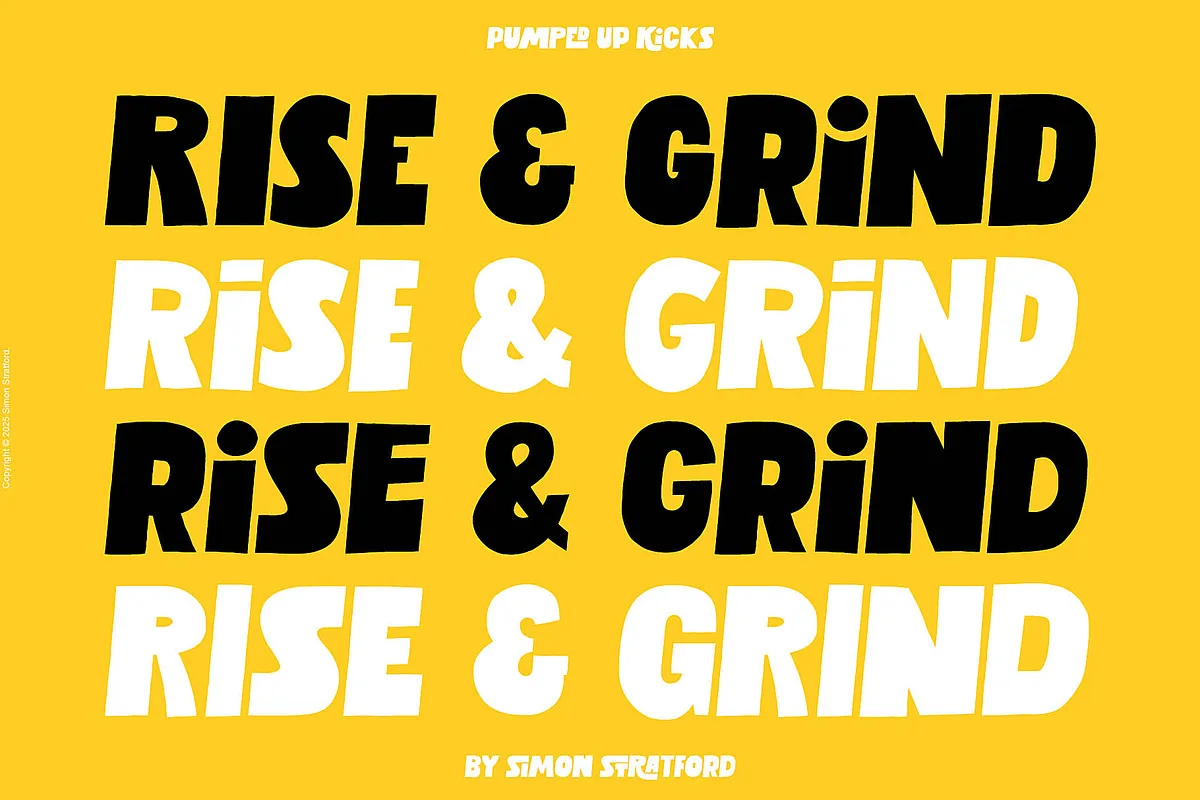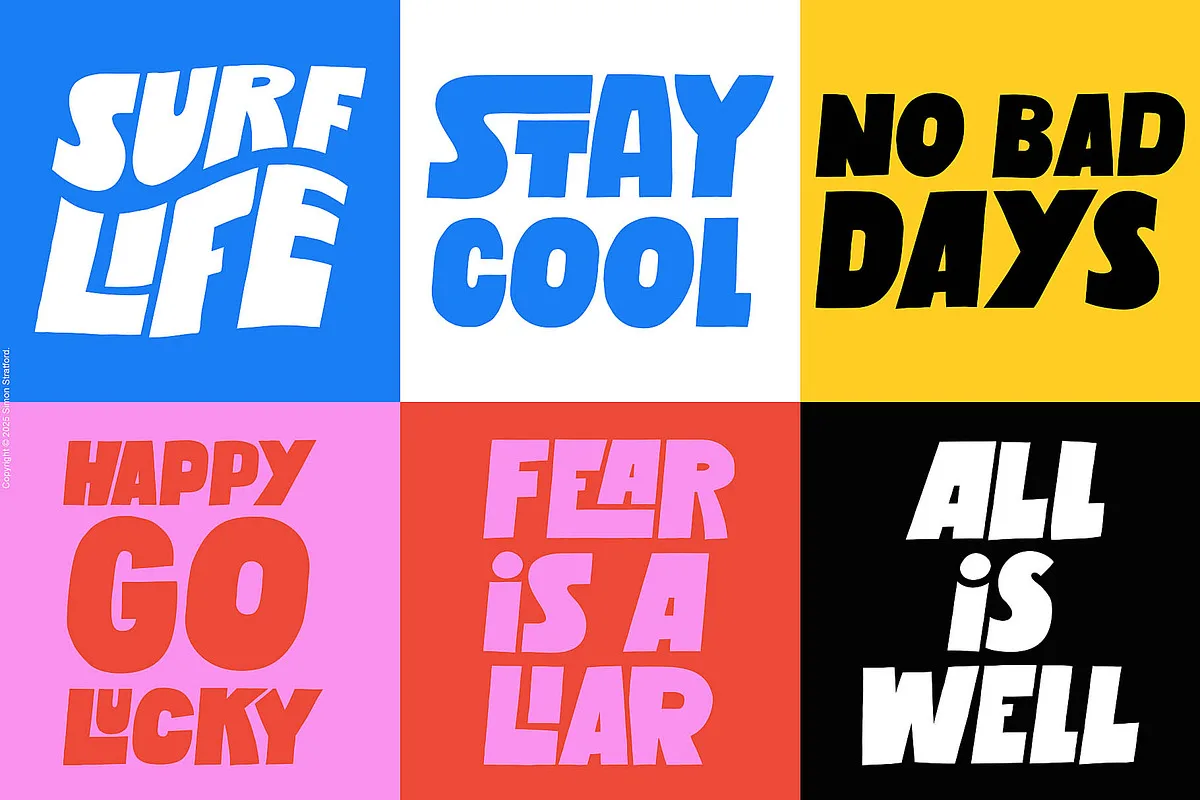
Introducing Pumped Up Kicks A modern typeface full of energy and fun. Bold, playful, and bursting with personality, Pumped Up Kicks is a sans-serif display font that exudes energy and liveliness. Perfect for designs that demand attention, this font combines creativity with functionality to deliver a truly unique aesthetic.